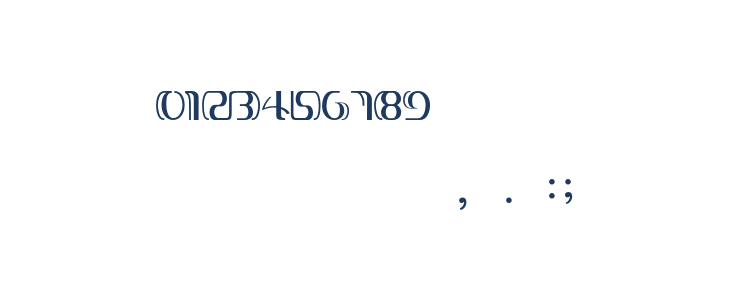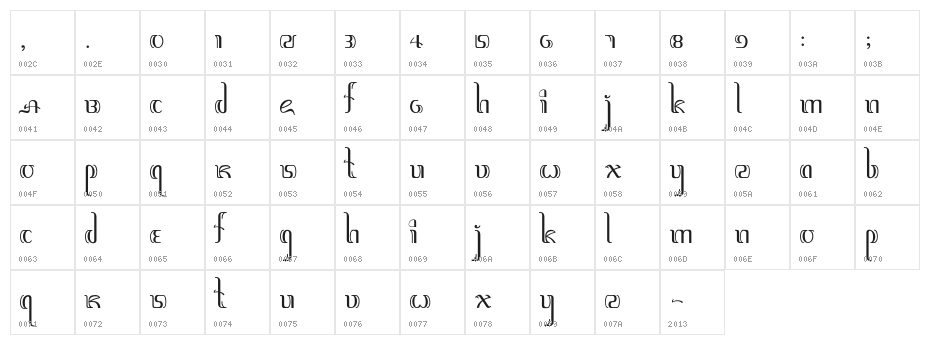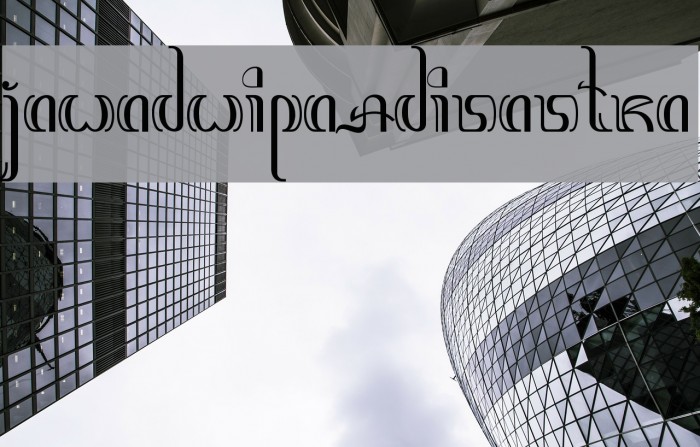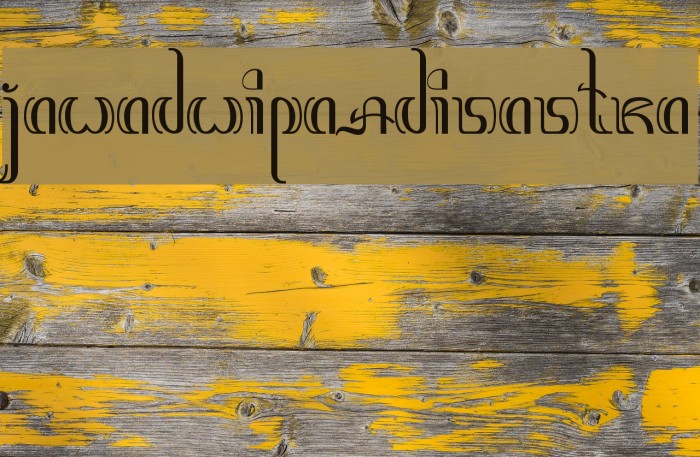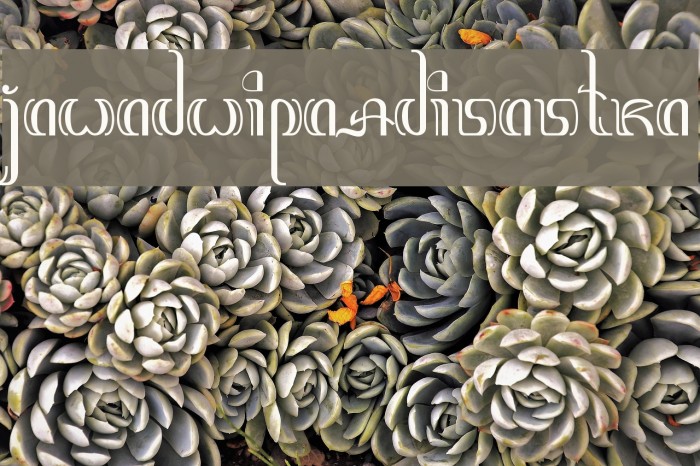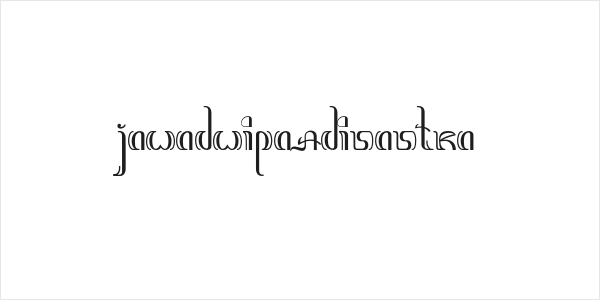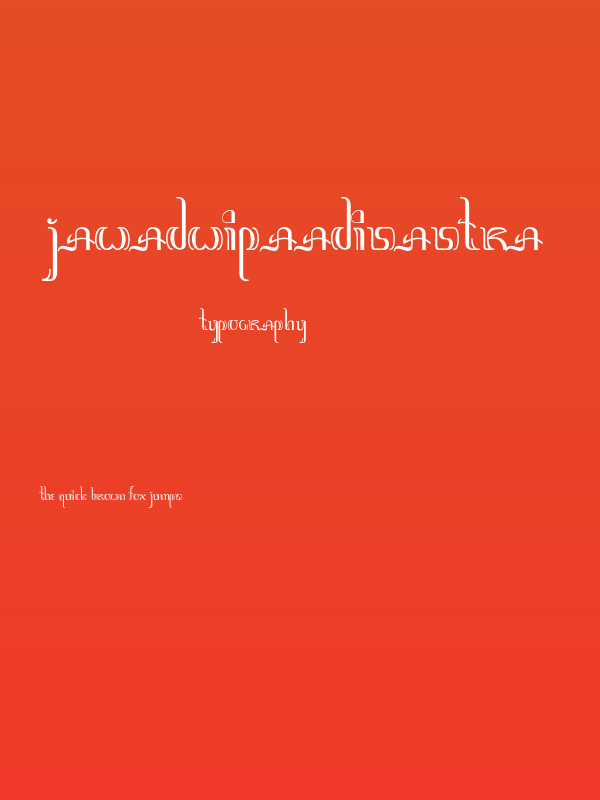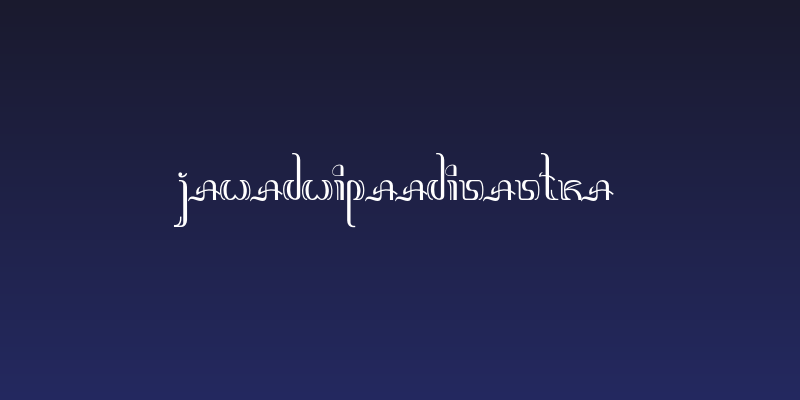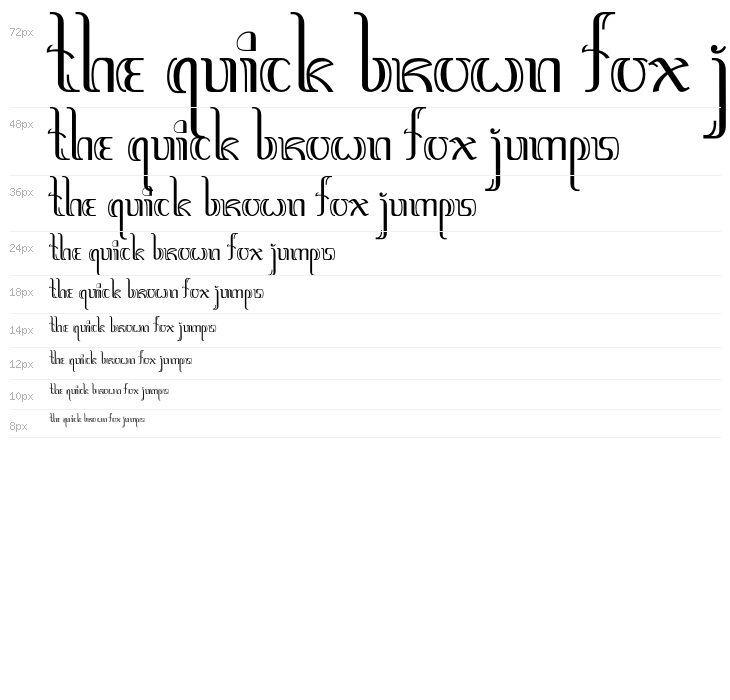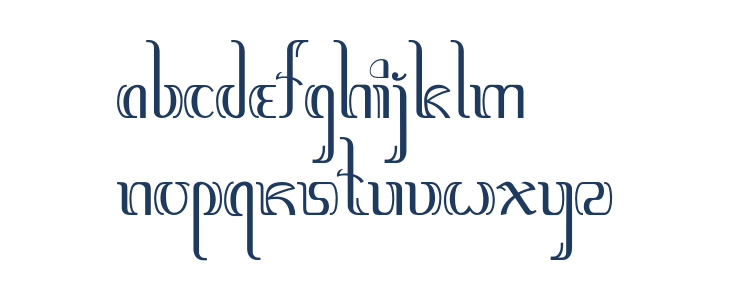
JawadwipaAdisastra Font
JawadwipaAdisastra Description
This font features a unique and artistic design with a blend of modern and traditional elements. The characters are elegantly curved with a distinct flair, giving them a sophisticated and ornamental appearance. The uppercase and lowercase letters share a consistent style, with elongated ascenders and descenders that add to the font's decorative nature. The numerals are equally stylized, maintaining the overall aesthetic. The special characters are designed to complement the letters, ensuring a cohesive look across all text elements. This font is ideal for projects that require a touch of elegance and creativity.
| Proposed Projects | Ideal for wedding invitations, luxury branding, artistic posters, and decorative headings. |